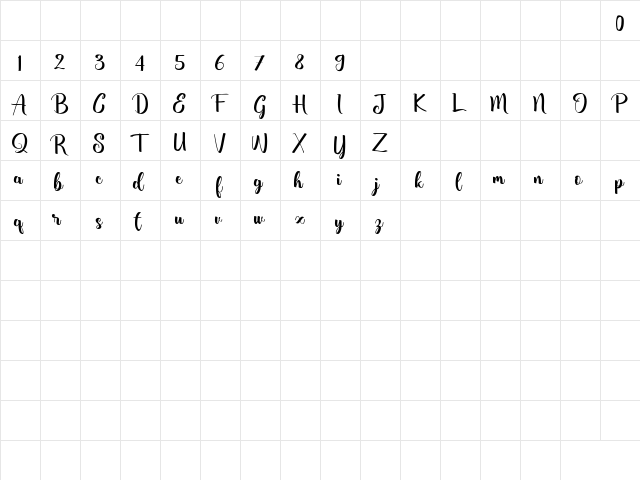
Sweet Lemonade Regular
| Designer | Ardian Nuvianto |
Design Context for Sweet Lemonade Typeface
Sweet Lemonade is a composed and adaptable typeface that performs quietly and consistently across a wide range of design contexts.